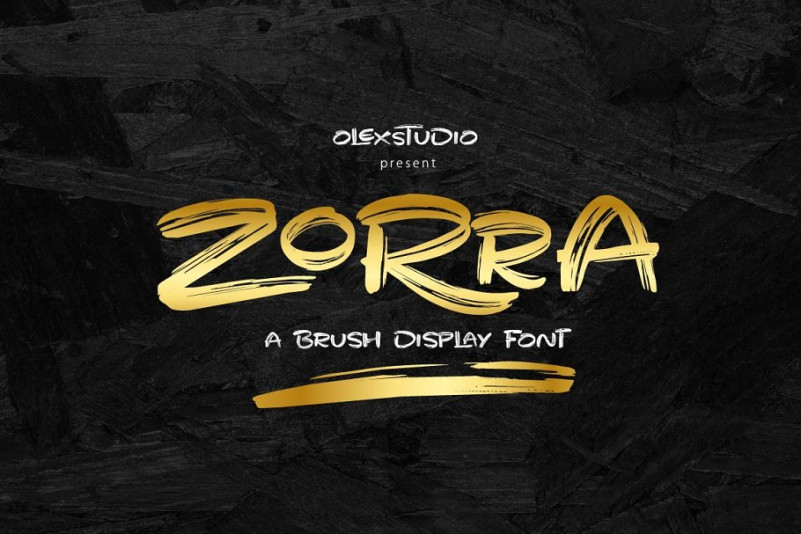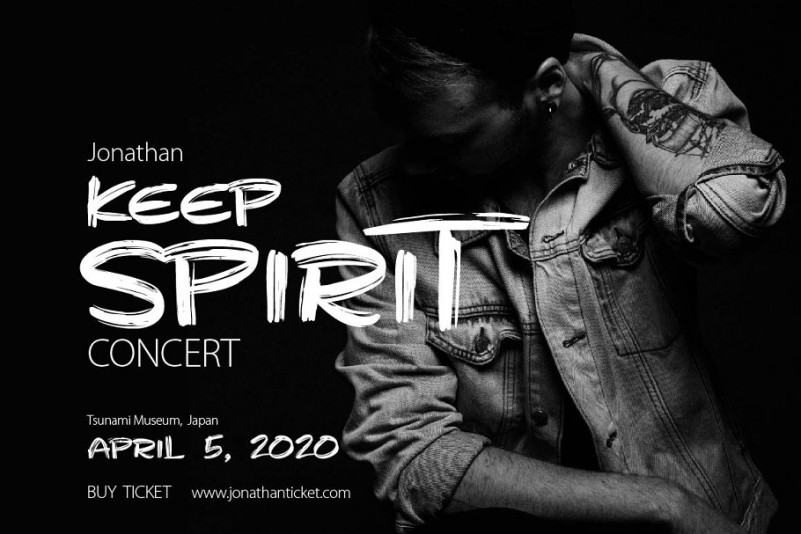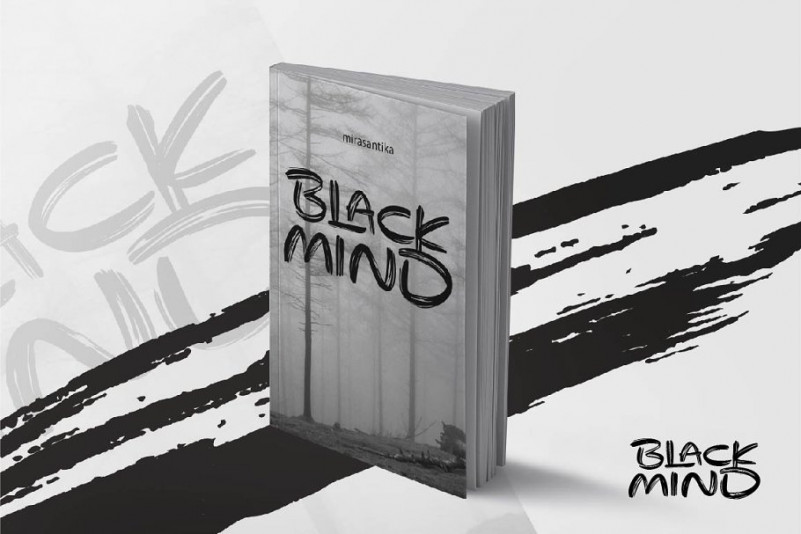
Zorra Font
Zorra-Display Font This Font will look gorgeous on all your designs, invitation, book, branding materials, logo’s, t-shirt, poster and all project design other.